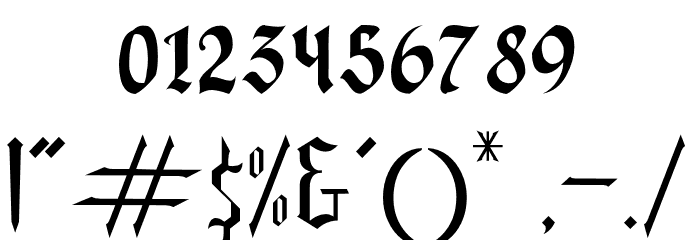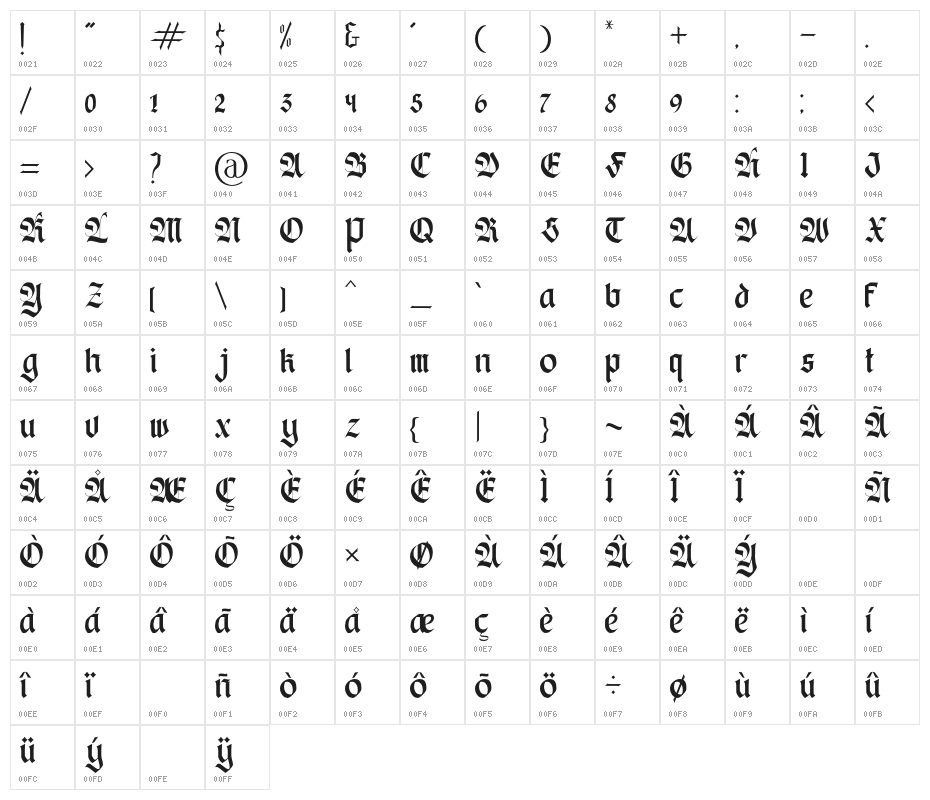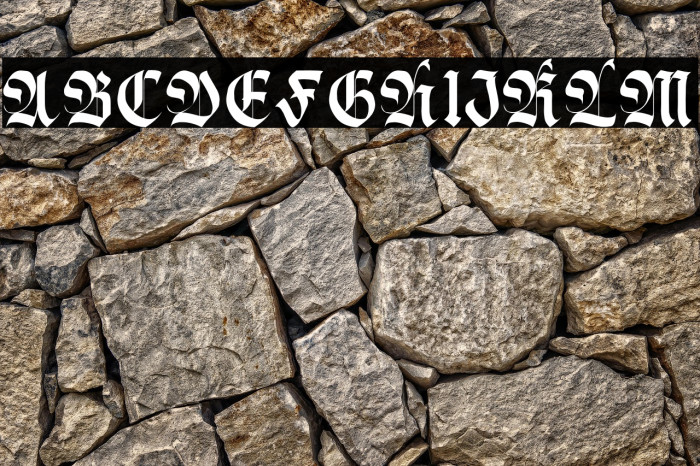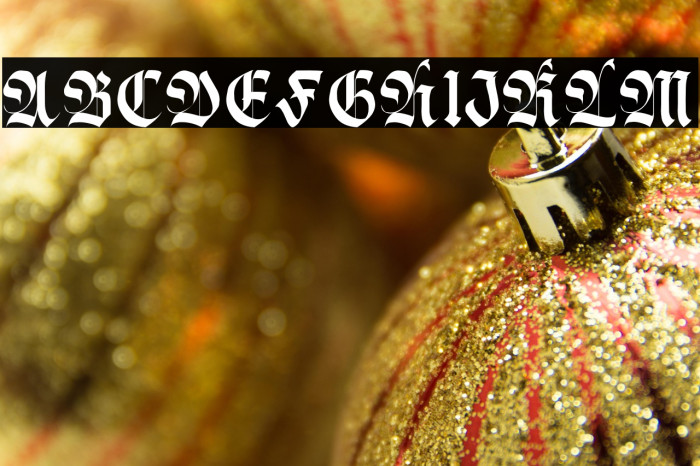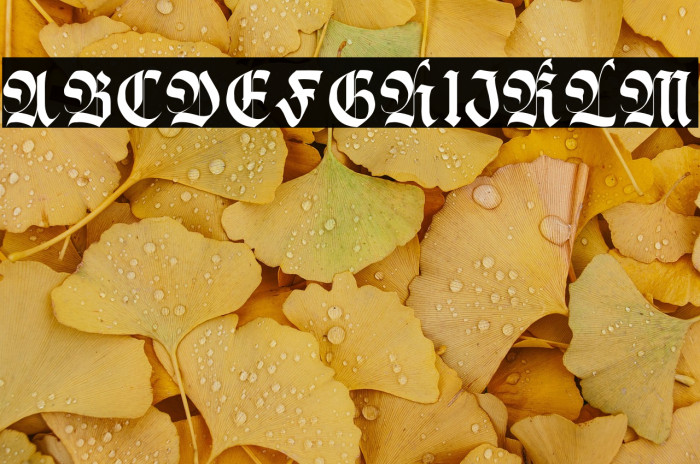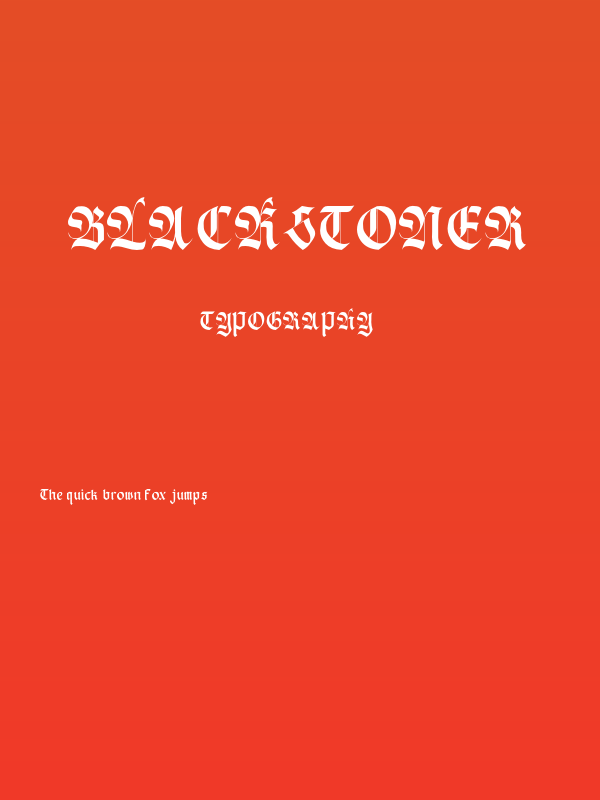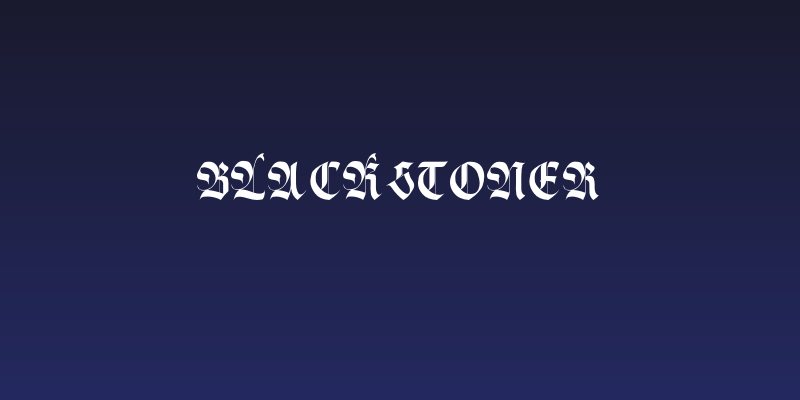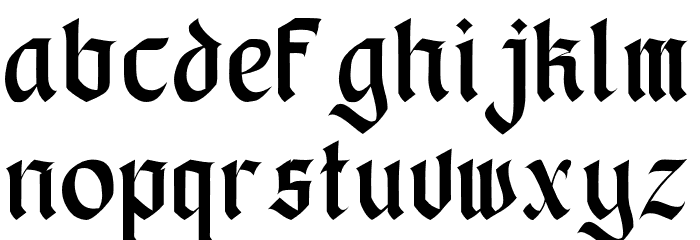
BlackStoner Font
BlackStoner Description
This font embodies the traditional Blackletter style, characterized by its ornate and intricate letterforms. The uppercase letters exhibit sharp, angular lines with dramatic flourishes, while the lowercase letters maintain a consistent rhythm with a slightly more subdued flair. The numbers and special characters follow the same stylistic cues, ensuring a cohesive appearance across all glyphs. The overall aesthetic is reminiscent of medieval manuscripts, exuding a sense of historical gravitas and elegance. The strokes are bold and pronounced, with a high contrast between thick and thin lines, adding to the font's dramatic impact.
| Proposed Projects | Ideal for projects requiring a historical or gothic touch, such as book covers, posters, or branding for vintage-themed events. |